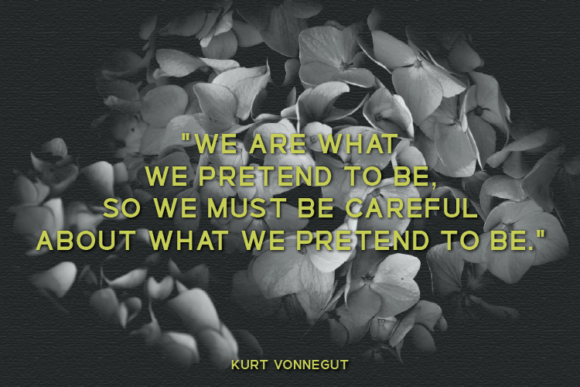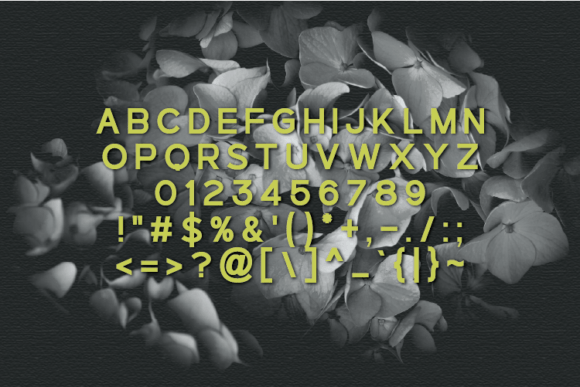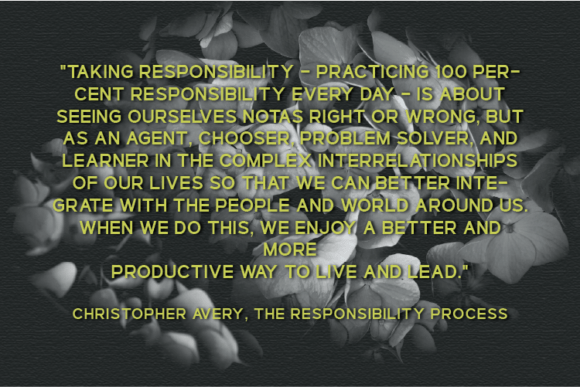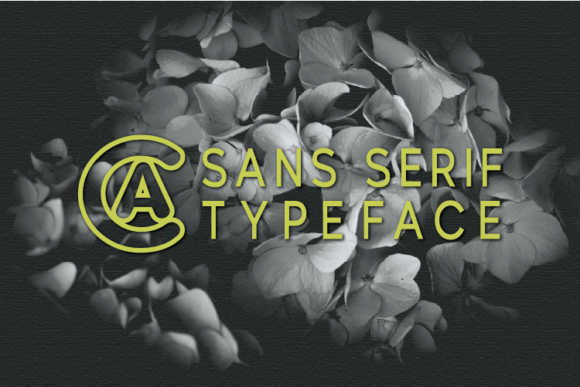
Introducing Flowering Font: Elevate Your Designs with Elegance and Versatility
In the world of typography, a font can make or break a design. For designers, crafters, and creative enthusiasts, finding the perfect font that combines style, modernity, and class can be a daunting task. This is where Flowering Font comes into play – a versatile, modern, and classy sans serif font that is perfect for a wide range of applications, from logos and weddings to invitations, quotes, advertisements, and more.
Unleash Your Creativity with Flowering Font
Flowering Font is designed to bring a touch of elegance and sophistication to your designs. Its clean and crisp lines make it an ideal choice for projects that require a modern and classy look. Whether you’re working on a logo, a wedding invitation, or a magazine spread, Flowering Font is sure to make your design stand out.
One of the key features of Flowering Font is its versatility. It can be used in a variety of contexts, from formal to informal, and can be easily paired with other fonts to create a unique and visually appealing design. Whether you’re a designer, a crafter, or simply a creative enthusiast, Flowering Font is a valuable addition to your font library.
Flowering Font is perfect for a wide range of applications, including:
- Logos: Create a lasting impression with a modern and classy logo that incorporates Flowering Font.
- Weddings: Add a touch of elegance to your wedding invitations, programs, and other stationery with Flowering Font.
- Invitations: Create beautiful and eye-catching invitations for any occasion, from birthdays to baby showers.
- Quotes: Add a touch of sophistication to your quote designs with Flowering Font.
- Advertisements: Create visually appealing ads that grab attention with Flowering Font.
- Print: Use Flowering Font in your print designs, from brochures to business cards.
- Magazines: Add a touch of class to your magazine spreads with Flowering Font.
Why Choose Flowering Font?
So, why choose Flowering Font over other fonts? Here are just a few reasons:
- Modern and Classy: Flowering Font has a modern and classy look that is sure to elevate your designs.
- Versatile: Flowering Font can be used in a wide range of applications and can be easily paired with other fonts.
- Elegant: Flowering Font has a clean and elegant design that is perfect for projects that require a touch of sophistication.
- Easy to Read: Flowering Font is easy to read, making it perfect for body text and headlines.
Tips for Using Flowering Font
Here are a few tips for using Flowering Font in your designs:
- Pair with Other Fonts: Experiment with pairing Flowering Font with other fonts to create a unique and visually appealing design.
- Use Different Weights: Use different weights of Flowering Font to add depth and interest to your design.
- Experiment with Colors: Experiment with different colors and textures to add an extra layer of interest to your design.
In conclusion, Flowering Font is a versatile, modern, and classy sans serif font that is perfect for a wide range of applications. Its clean and elegant design makes it an ideal choice for designers, crafters, and creative enthusiasts who want to add a touch of sophistication to their designs. Whether you’re working on a logo, a wedding invitation, or a magazine spread, Flowering Font is sure to make your design stand out.